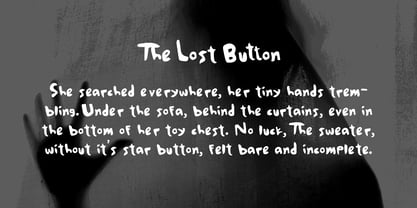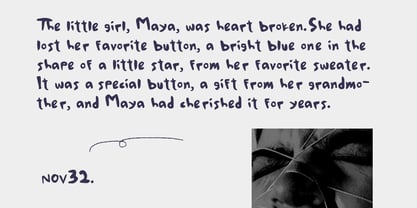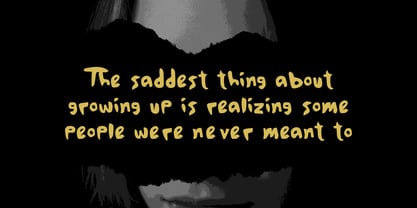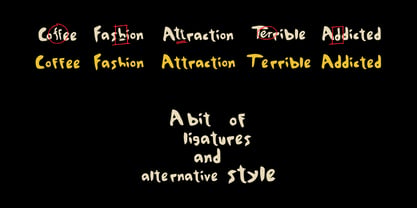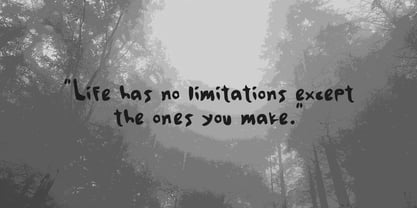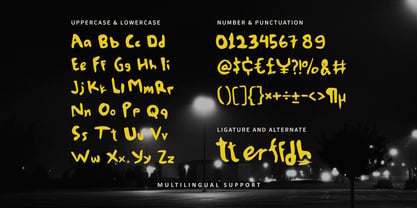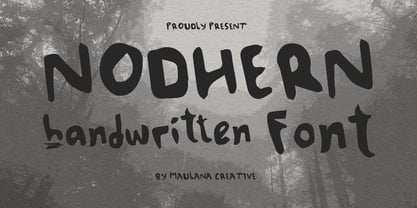
MC Nodhern
by Maulana Creative
The MC Nodhern Font Family was designed by Gilang Maulana and published by Maulana Creative. MC Nodhern contains 1 styles. More about this family
Nodhern handwritten handmade font. Fun character with a bit of ligatures and alternates. To give you an extra creative work. This font is good for logo design, Social media, Movie Titles, Books Titles, a short text even a long text letter and good for your secondary text font with script or serif. Make a stunning work with Nodhern font.
Designers: Gilang Maulana
Foundry: Maulana Creative